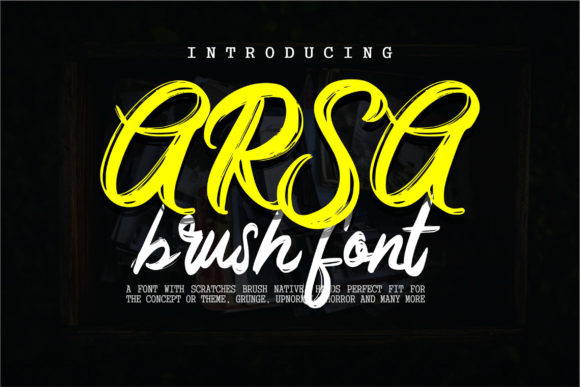
The Ultimate Guide to Arsa Font: Adding an Authentic Vibe to Your Designs
I’ll never forget the time I was working on a branding project for a trendy craft brewery, and I just couldn’t find the right font to capture their laid-back, artisanal vibe. The client wanted something that screamed “authentic” and “raw,” but everything I tried seemed too polished or generic. That’s when I stumbled upon Arsa Font, and it was love at first sight! 💡
Arsa is a fun and bold brush script with a cool twist, making it the perfect fit for adding an authentic and raw vibe to your next design project. In this comprehensive guide, we’ll dive into the world of Arsa Font, exploring its features, how to use it, and some similar fonts you might love.
Honest Review: What I Love (and a Few Quirks) 🤔
Here’s what I’m obsessed with about Arsa Font:
• ✨ Unique, hand-crafted feel: Arsa’s brush script style gives it a one-of-a-kind, authentic look that’s perfect for designs that need a personal touch.
• ✅ Highly legible: Despite its bold and playful nature, Arsa is surprisingly easy to read, even at smaller font sizes.
• 💥 Versatile: This font can be used for everything from logos and headings to packaging and social media graphics.
As for quirks, I’ve noticed:
• ⚠️ Limited use in body text: While Arsa is amazing for headlines and short paragraphs, it’s not the best choice for longer blocks of text.
• 🤔 Some glyphs may require manual adjustment: Depending on your design, you might need to tweak certain glyphs to get the perfect spacing or alignment.
Similar Fonts and Alternatives 🔍
If you love Arsa Font, you might also enjoy:
• Kaffeed: A warm, coffee-stained script font perfect for food and beverage branding.
• Bubblegum: A playful, bubbly font great for kids’ designs, packaging, and advertising.
• Great Vibes: A modern, elegant script font ideal for luxury brands and high-end designs.
• Pacifico: A beautiful, beachy script font great for travel and lifestyle brands.
The Story Behind Arsa Font 🌟
Arsa Font was designed with the intention of capturing the raw, unpolished energy of street art and graffiti. The designer wanted to create a font that felt like it was painted on a wall or scrawled on a piece of cardboard – something authentic and relatable.
What type of designs is Arsa Font best suited for? Arsa Font is perfect for designs that need a bold, authentic vibe, such as logos, branding, packaging, and social media graphics.
Is Arsa Font difficult to read? No, Arsa Font is surprisingly legible, even at smaller font sizes, making it suitable for headlines and short paragraphs.
Can I use Arsa Font in digital and print designs? Yes, Arsa Font can be used in both digital and print designs, from social media graphics to business cards and brochures.